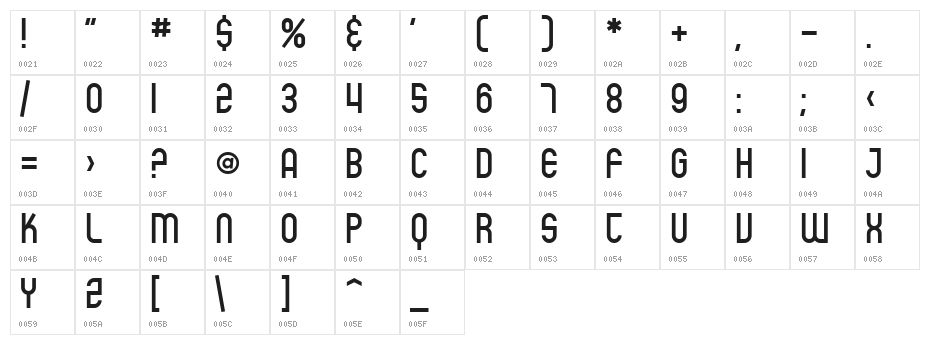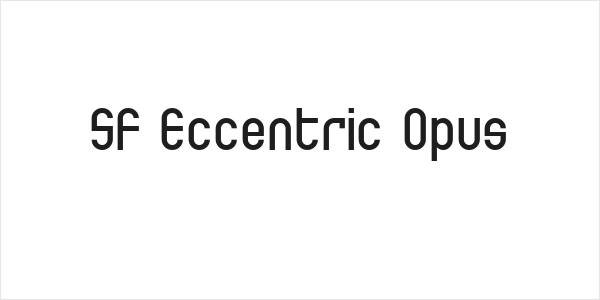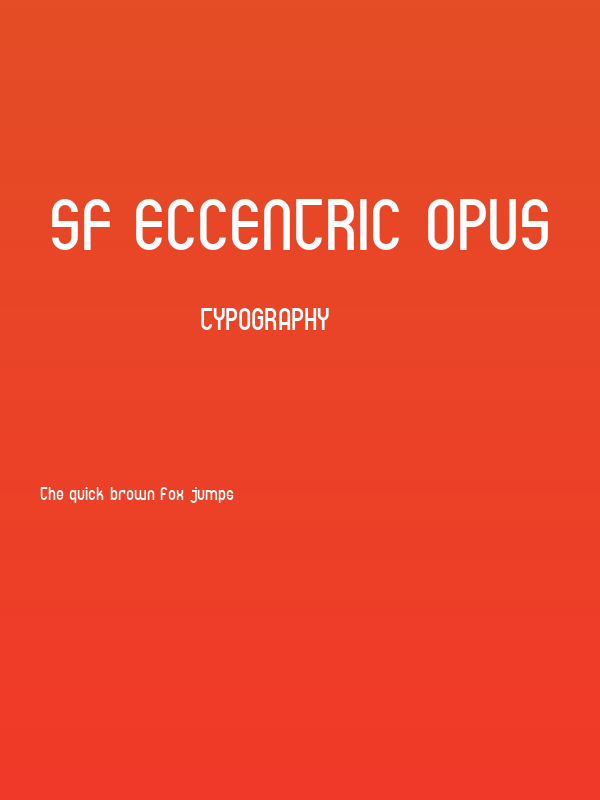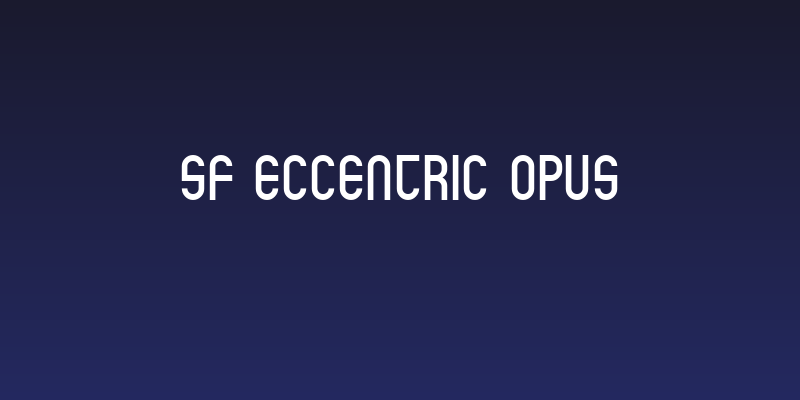
SF Eccentric Opus Font
SF Eccentric Opus Description
This font features a unique blend of geometric and rounded elements, creating a modern and slightly eccentric appearance. The uppercase letters are bold and structured, with a consistent height and width that gives them a strong presence. The lowercase letters maintain a similar geometric style, with some characters exhibiting playful curves and unique terminal endings. The numerals are clear and easy to read, matching the overall aesthetic of the font. Special characters are well-integrated, maintaining the font's distinctive style. The overall design is clean and contemporary, making it suitable for a variety of creative applications.